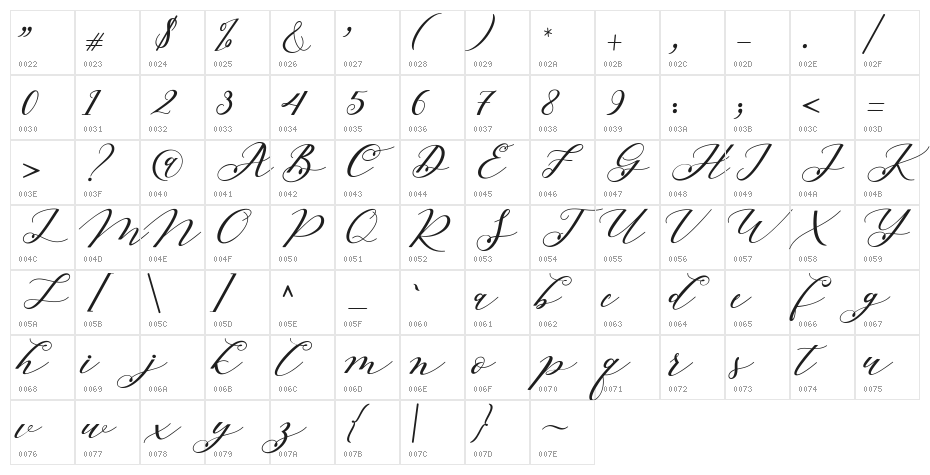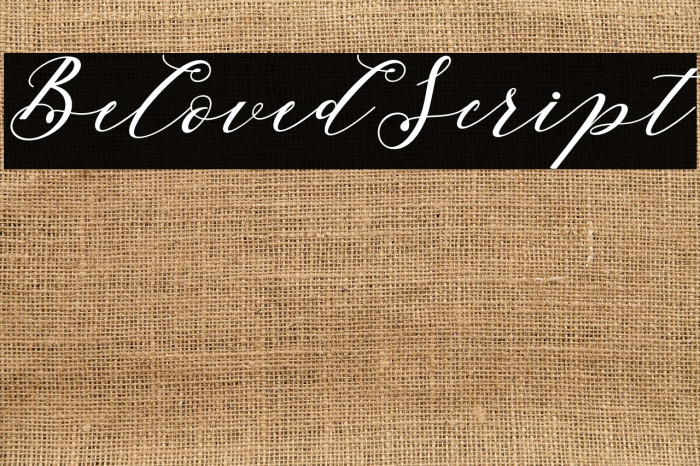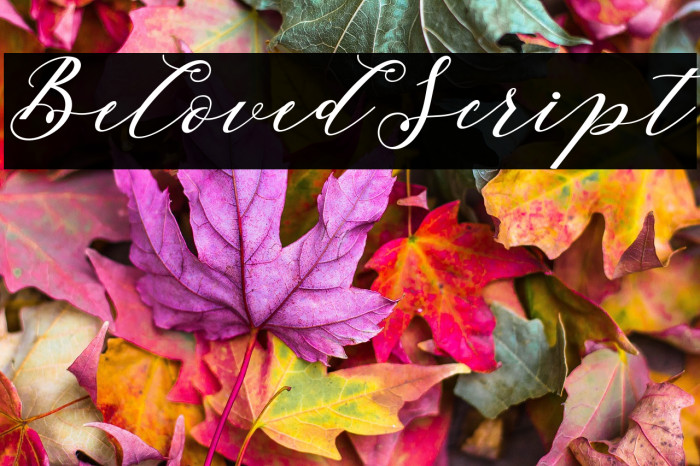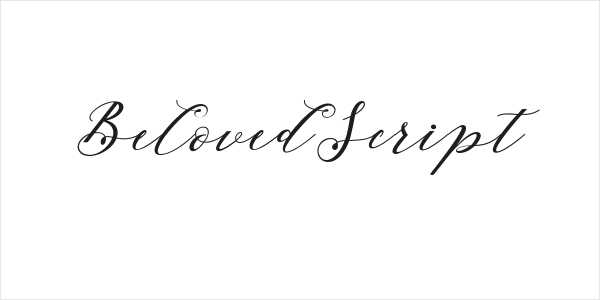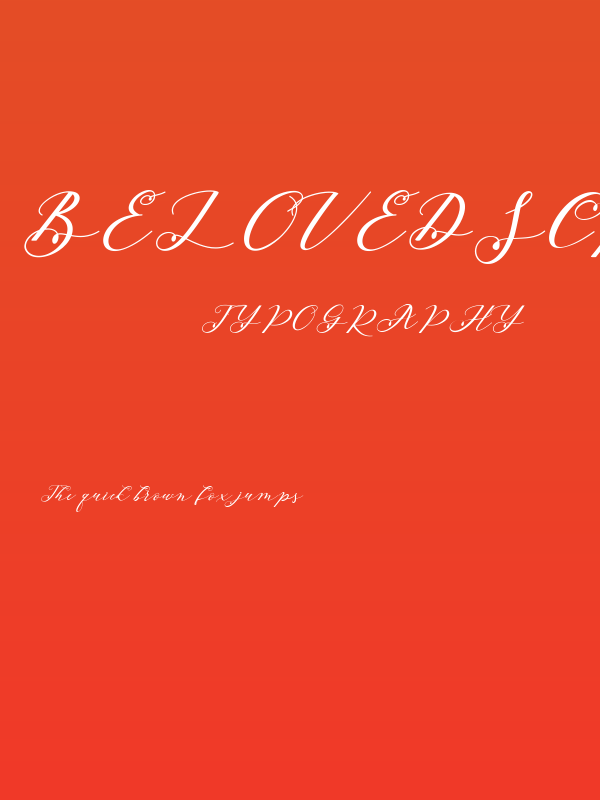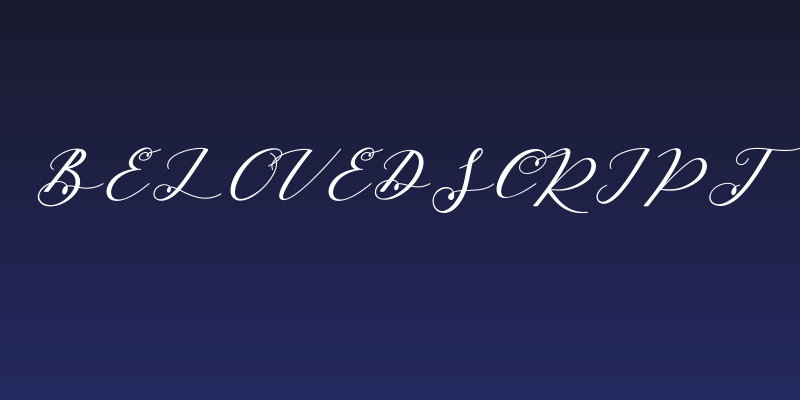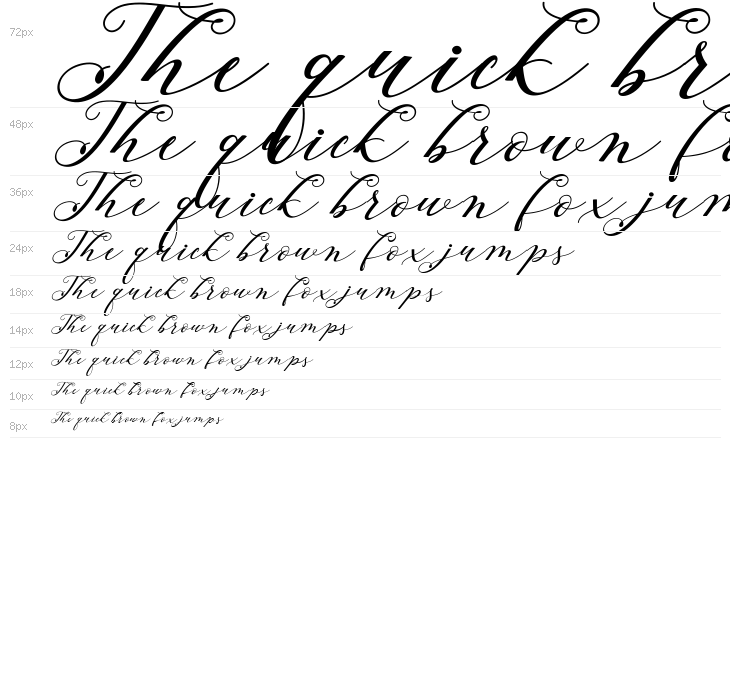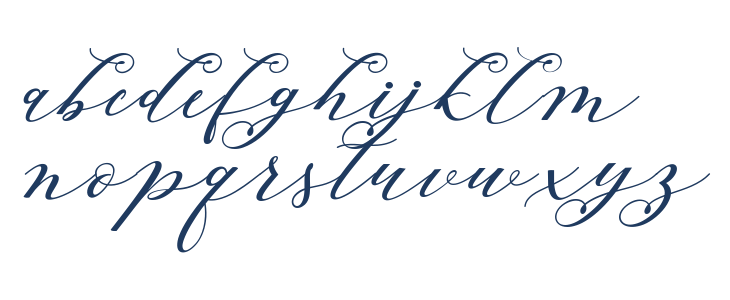
BelovedScript Font
BelovedScript Description
This elegant script font features flowing, cursive letterforms with intricate swashes and flourishes. The uppercase letters are particularly ornate, with loops and curves that give a sense of movement and grace. The lowercase letters maintain a consistent style, with smooth connections between characters, enhancing readability while retaining a decorative flair. The numerals are bold and slightly italicized, matching the overall aesthetic. Special characters are designed with similar attention to detail, making them suitable for a variety of decorative purposes.
| Use Case | Logos, Invitations, Decorative text |
| Proposed Projects | Ideal for wedding invitations, greeting cards, branding, and logo design where a touch of elegance and sophistication is desired. |